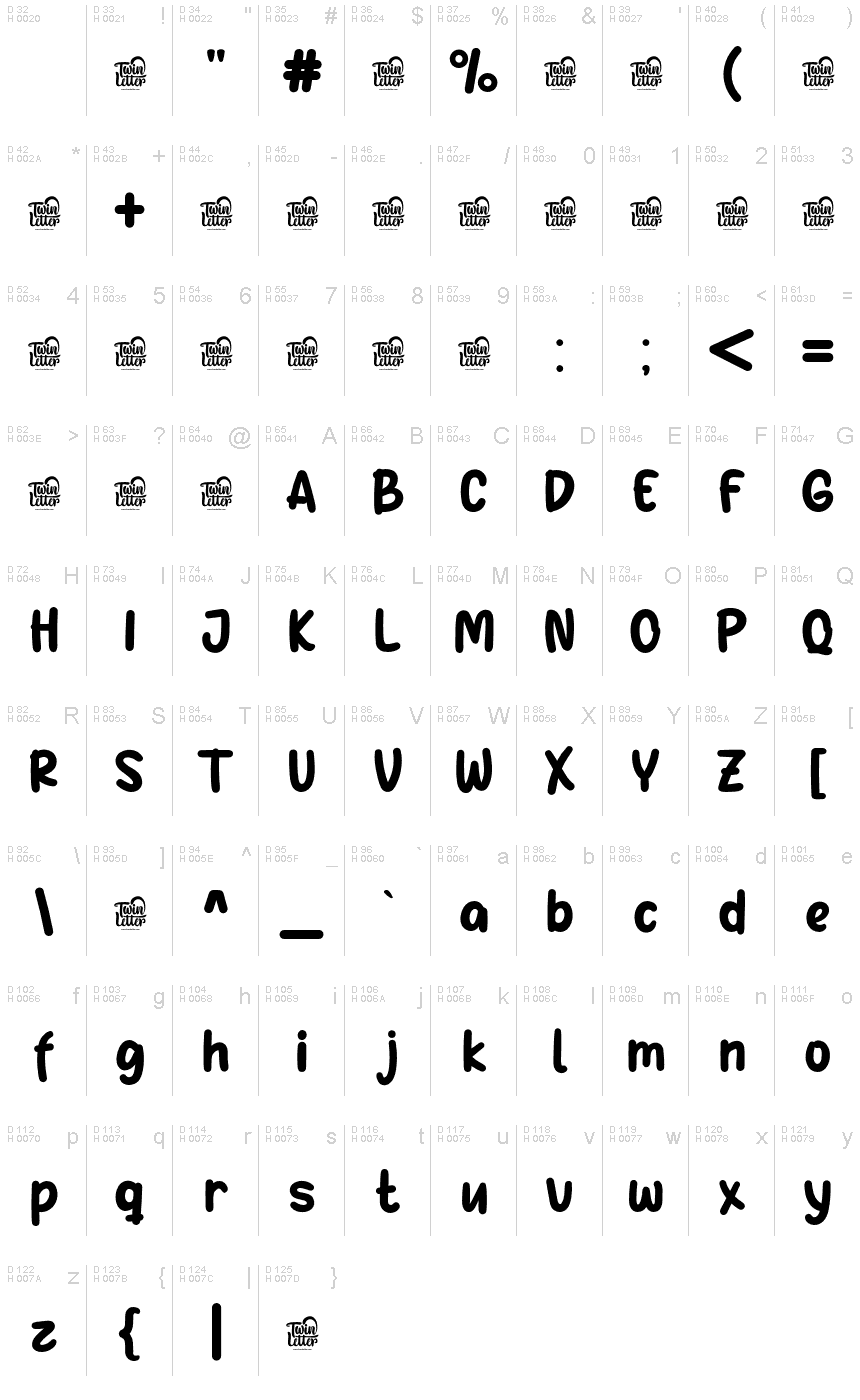
Gefuh-Regular
Gefuh, the handwritten font by twinletter, is a versatile typeface that adds a touch of personality to any project. With its flowing lines and unique character, Gefuh is perfect for invitations, greeting cards, and other creative projects. This semi-bold font is ideal for headlines and titles while the narrow width makes it suitable for body text. Whether you're designing a logo or creating a social media post, Gefuh's playful style will enchant your audience. Add some flair to your next design project with Gefuh – the handwritten font that captures the essence of creativity!